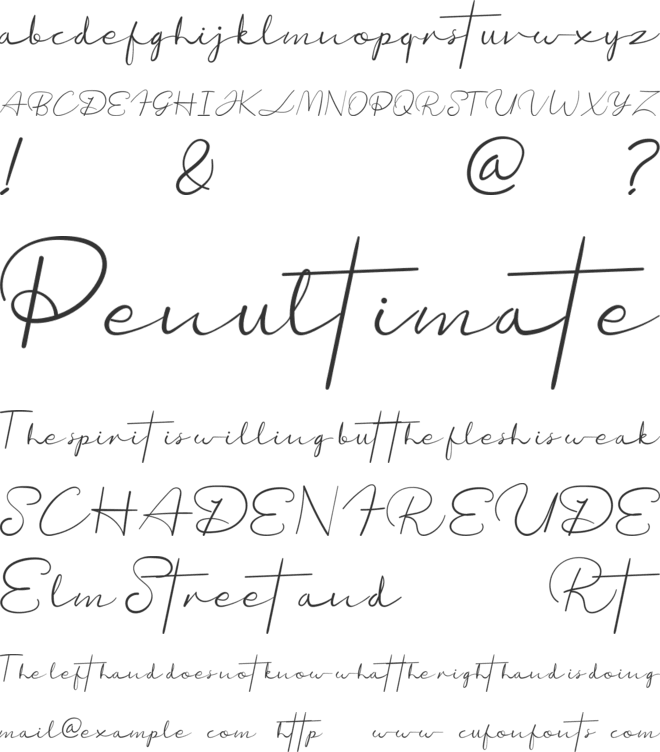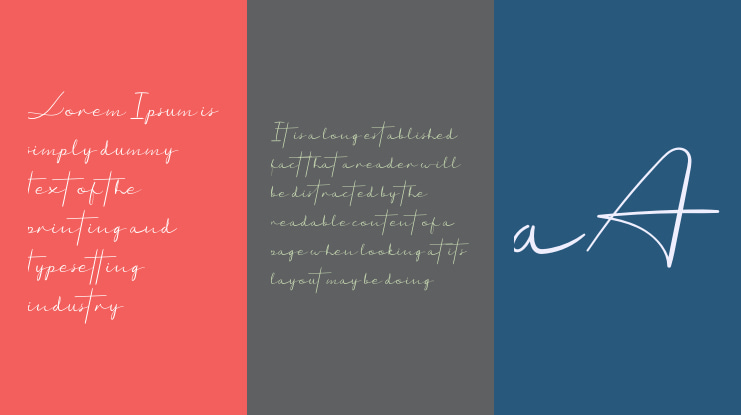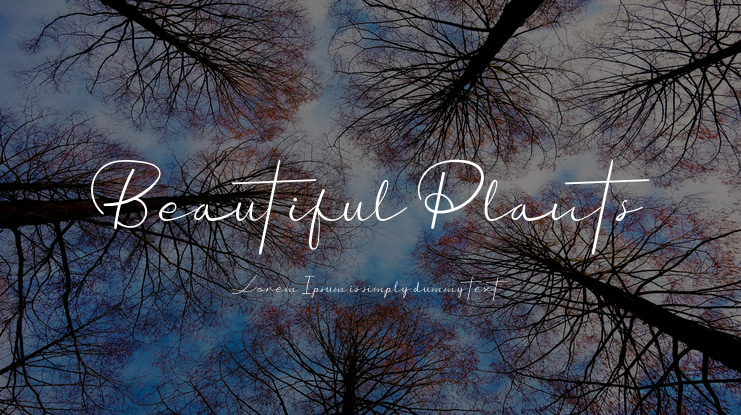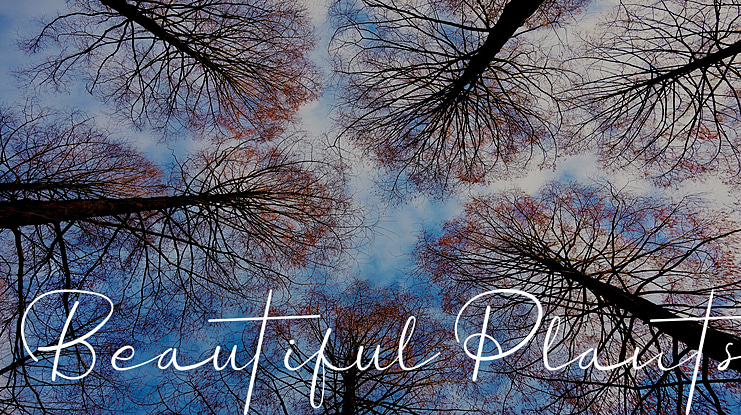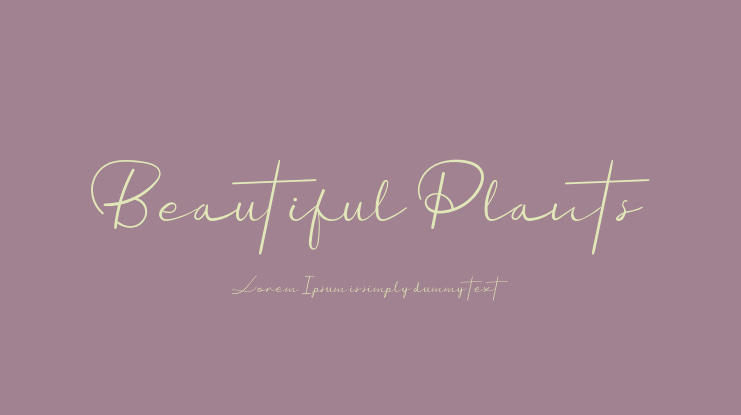
Beautiful Plants Font
Beautiful Plants is a handwritten calligraphy font that can apply in many stationeries such as lettering, signature, quotes, and wedding. This lovely script also comes with floral dingbats to complement your writing.